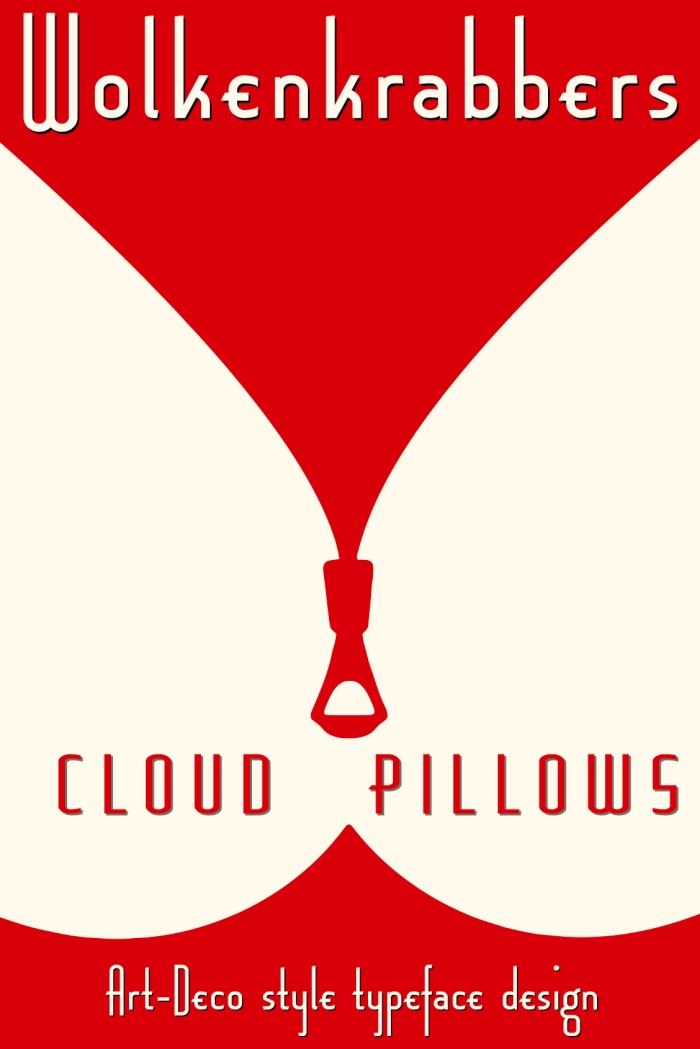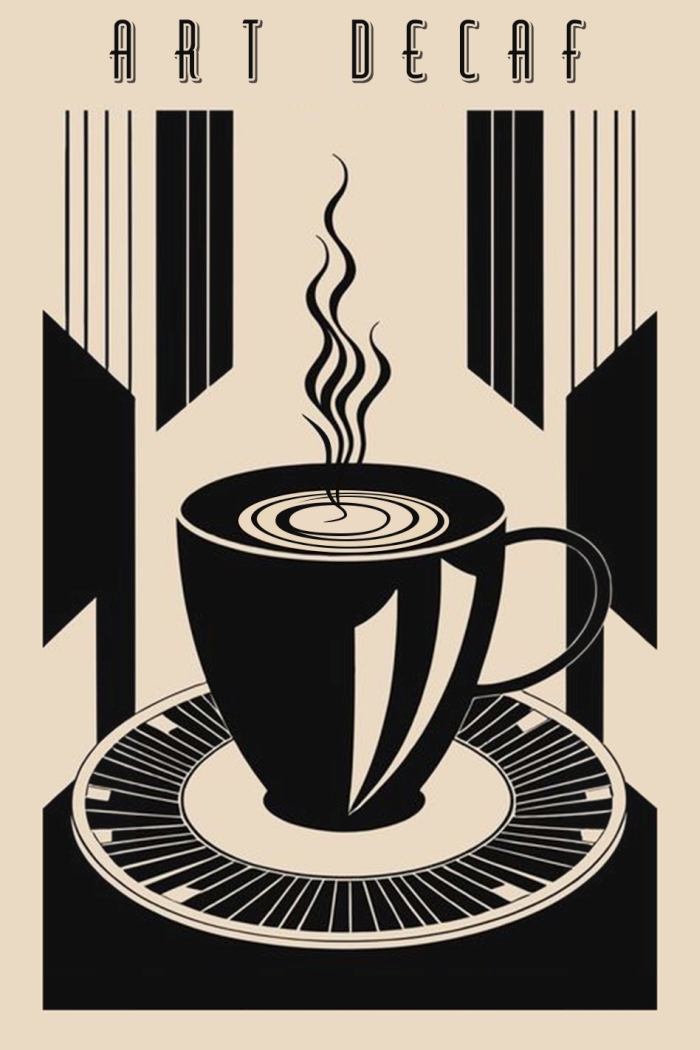
Wow! I Love this Font!
pretty damn cool
Hmm... How comforting is the smell of a good coffee (even if it's decaffe)... And how comforting is the smell of an excellent font like this, compa! My 10 2 U!
This work of yours brings out many associations, yet not a single one that I can describe specifically. The proportions are very interesting.
@Sed4tives, I would say it somehow feels Bioshock’s Rapture-y much more than anything else. And yeah, I know, because both are art deco, but for some reason the way the tall stretched proportions and floating dots over i, j evoke the feeling of quirkiness that is the closest to what the first Bioshock radiates.
Oh, and I have just noticed there are also alternates and oldstyle numerals—this is one masterful and robust work!
An excellent font with some wonderful samples, would fit in well on the streamliners of old~
Very nice Art Deco posters. I'm happy to see someone who is not afraid of having descenders! Many of your glyphs, especially the lowercase a, d, u, w, and y, could be improved with optical adjustment (a little overshoot). 10/10
Very Cool Ar-deco font with very high points in i j. It may be worth making alternatives with dots lower.
@Frodo7: That is correct, I'm most certainly not affraid of glyphs taking a nosediving well bellow the baseline or others that try to reach for the stars.
There is a number of methods to play around when dealing with additional extra bits of whitespace from a line-break. Such wild contrast in proportional ratios between cap-height and x-height, combined with condensed letterforms in terms would only amplifying this effect even further. These design parameters cause bigger chucks of open space than with more traditional proportions, and is simply an inescapable effect that lies within the very fabric of their design characteristics.
May I know what geometrical shapes you applied to make this awesome font structure? Can you guide me briefly? Is it really Font Structure productivity?
Great font!